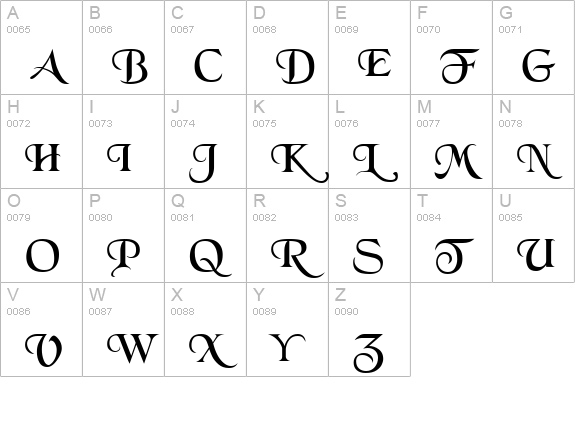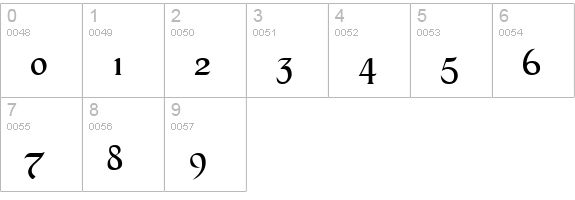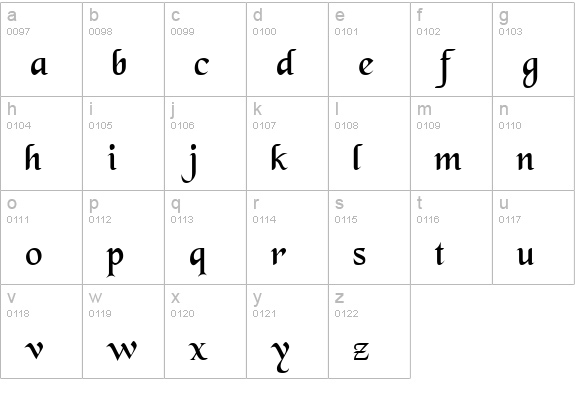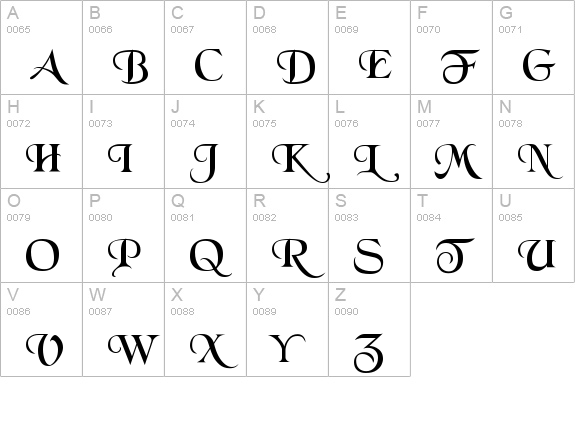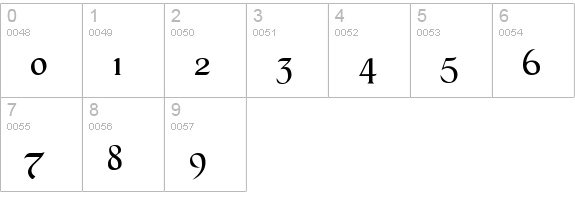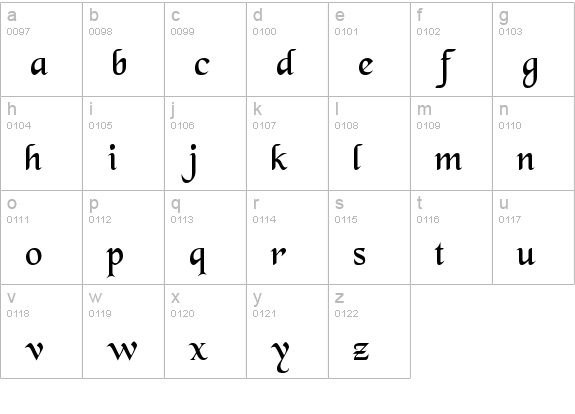
Catweazle font is a whimsical and playful typeface that exudes charm and personality. With its quirky curves and unique design, Catweazle is perfect for adding a touch of creativity to your projects. This free font is sure to make a statement and capture the attention of viewers. Whether you're working on a poster, logo, or social media graphic, Catweazle will bring a fun and fresh look to your design. You can freely download the Catweazle font at FontsMarket.com, where you'll find a wide range of fonts to enhance your creative projects. Don't miss out on this opportunity to add a touch of magic to your designs with the Catweazle font!